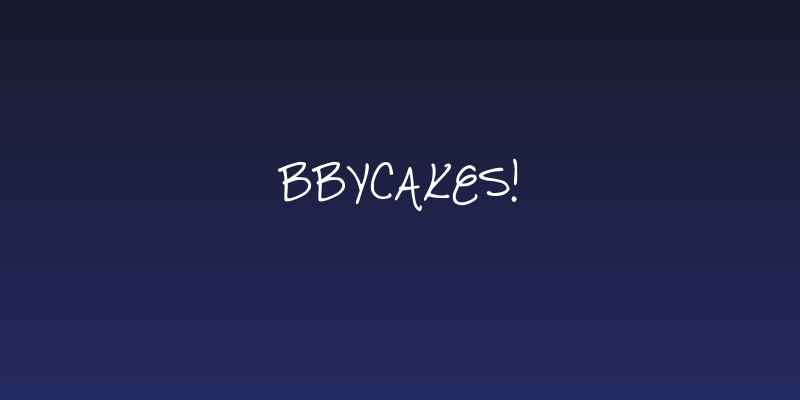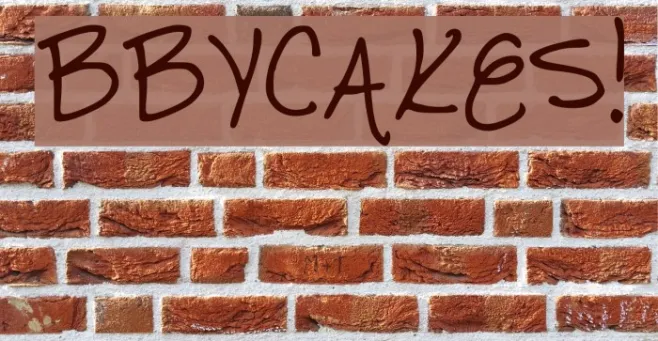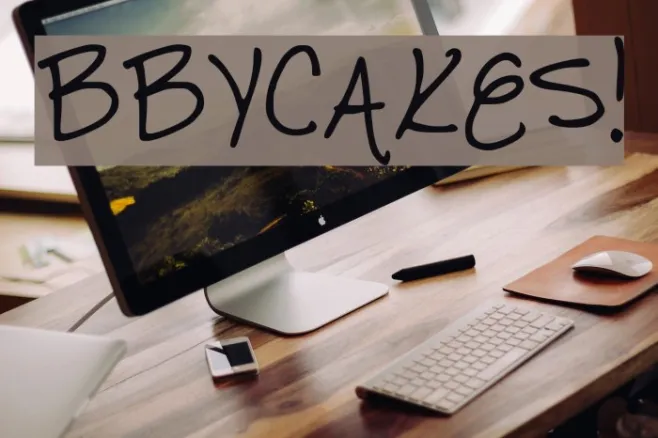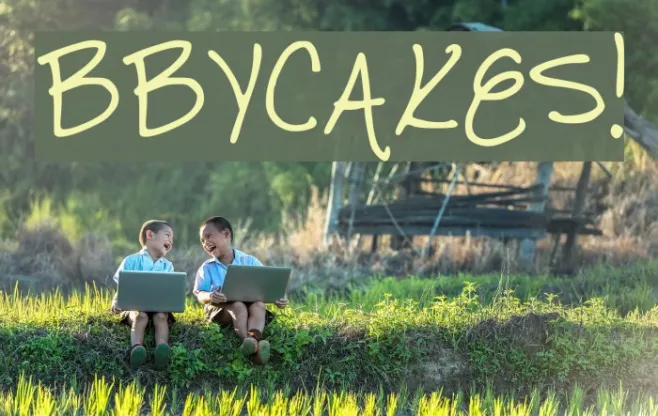
BBYCAKES! Font
BBYCAKES! Description
This playful and energetic font features a handwritten style with a casual, informal appearance. The letters are slightly slanted, giving a dynamic and lively feel. The strokes are uneven, with varying thickness that adds to the handwritten charm. The uppercase and lowercase letters maintain a consistent style, with unique character shapes that stand out. The numbers and special characters complement the alphabet with the same whimsical touch. This font is perfect for projects that require a personal and friendly tone, such as greeting cards, invitations, or playful branding.
| Use Case | Logos, Headlines, Informal Text |
| Proposed Projects | Ideal for greeting cards, invitations, playful branding, and personal projects. |